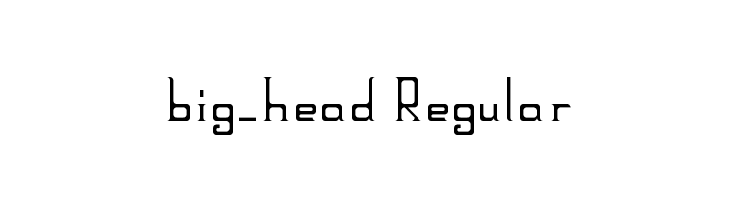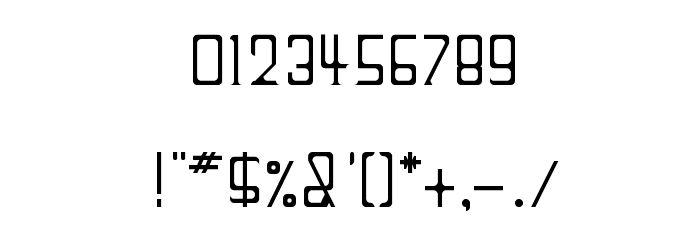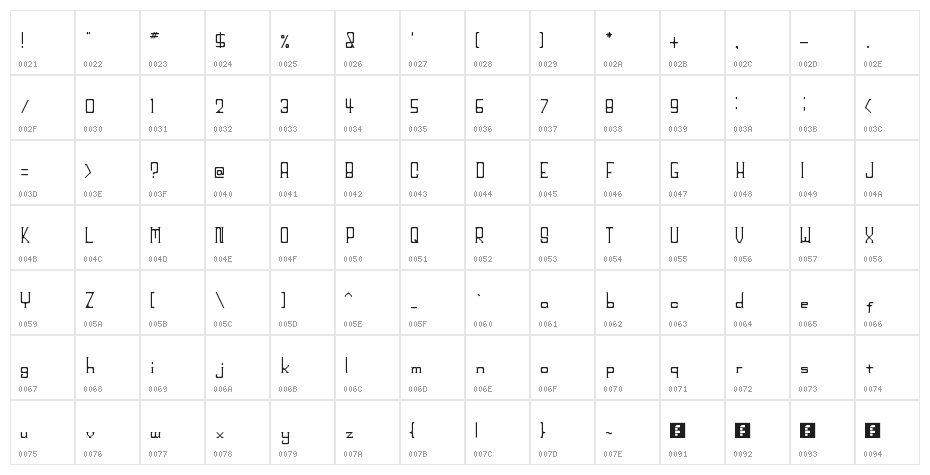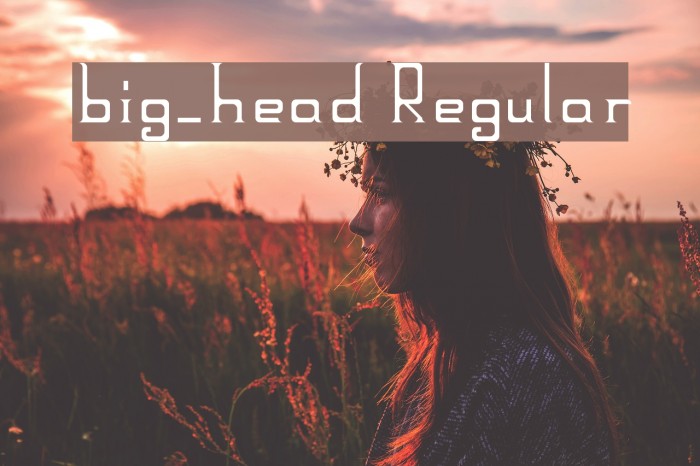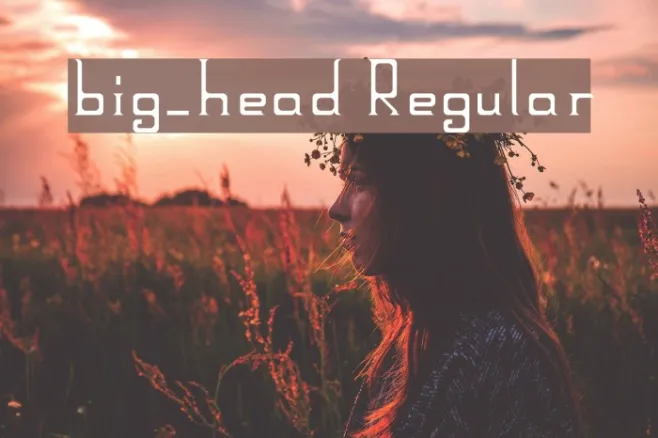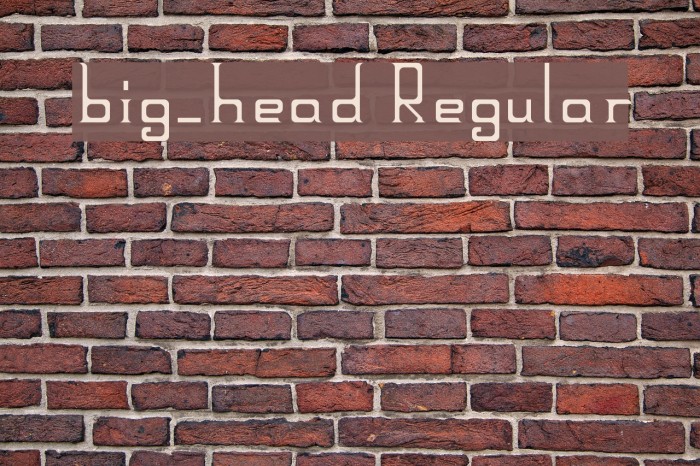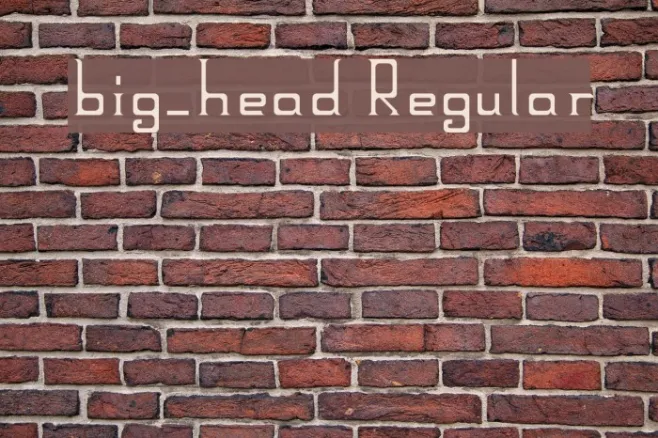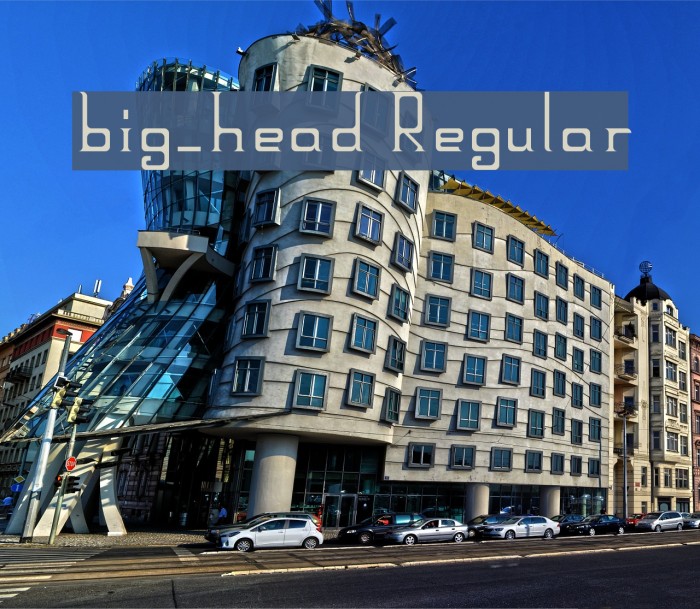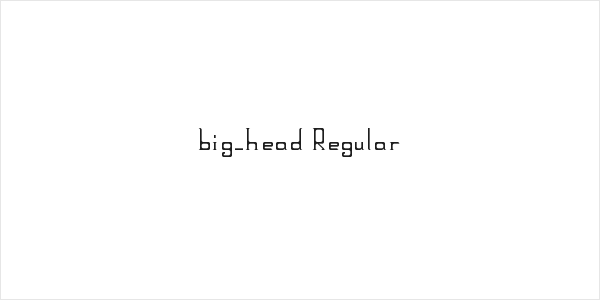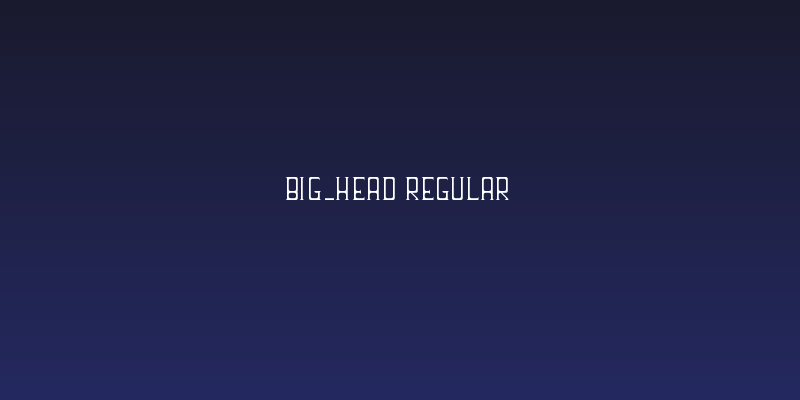
big_head Regular Font
big_head Regular Description
This font features a unique, futuristic design with geometric elements and sharp angles. The uppercase letters are bold and structured, while the lowercase letters maintain a consistent style with slightly more curves. The numerals are distinct and match the overall aesthetic, providing a cohesive look. Special characters are creatively designed, adding to the font's modern appeal. This typeface stands out due to its unconventional shapes and strong presence, making it ideal for projects that require a bold statement.
| Proposed Projects | Ideal for sci-fi themed designs, video game titles, tech branding, and modern posters. |